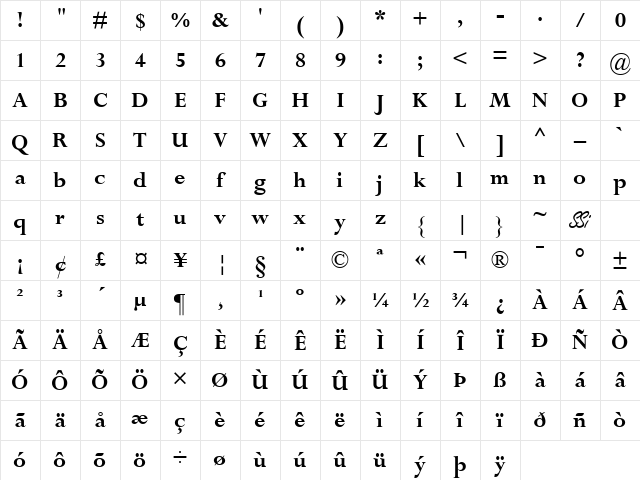
Compleat SSi Bold Free Font
Compleat SSi Bold
Compleat SSi Family
Design Context for Compleat SSi
Compleat SSi is a composed and adaptable typeface that performs quietly and consistently across a wide range of design contexts. Its bold stroke weight gives it real presence on the page.